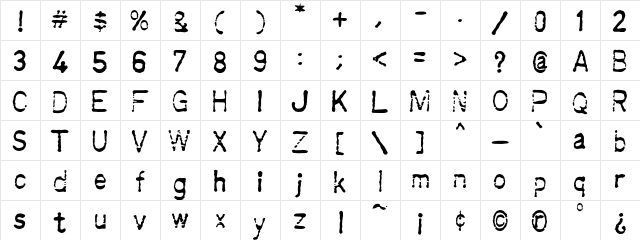
Crunk Regular
Design Context for Crunk Typeface
Crunk takes a measured approach to typography — its balanced proportions and neutral character make it a reliable workhorse for both digital and print work.